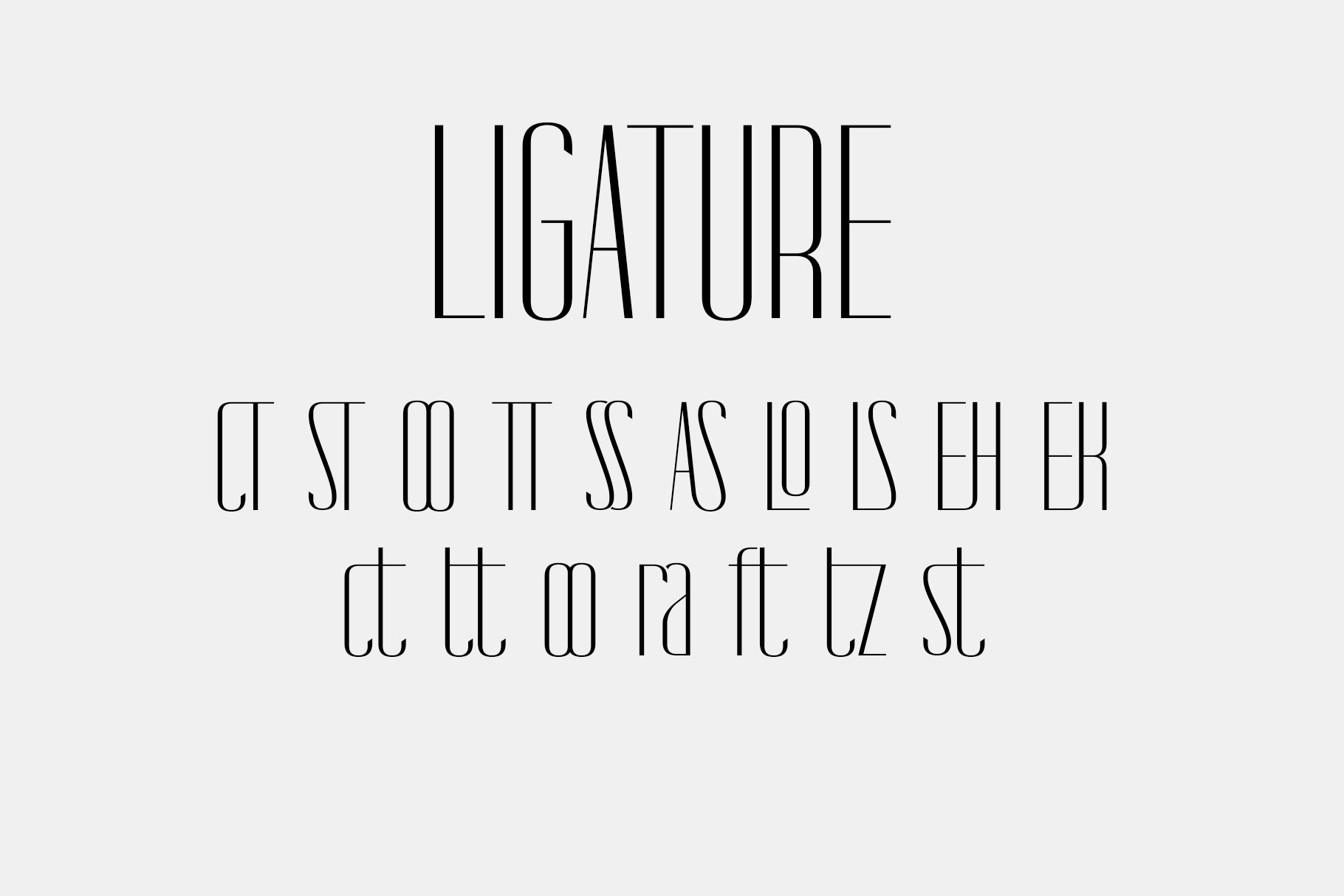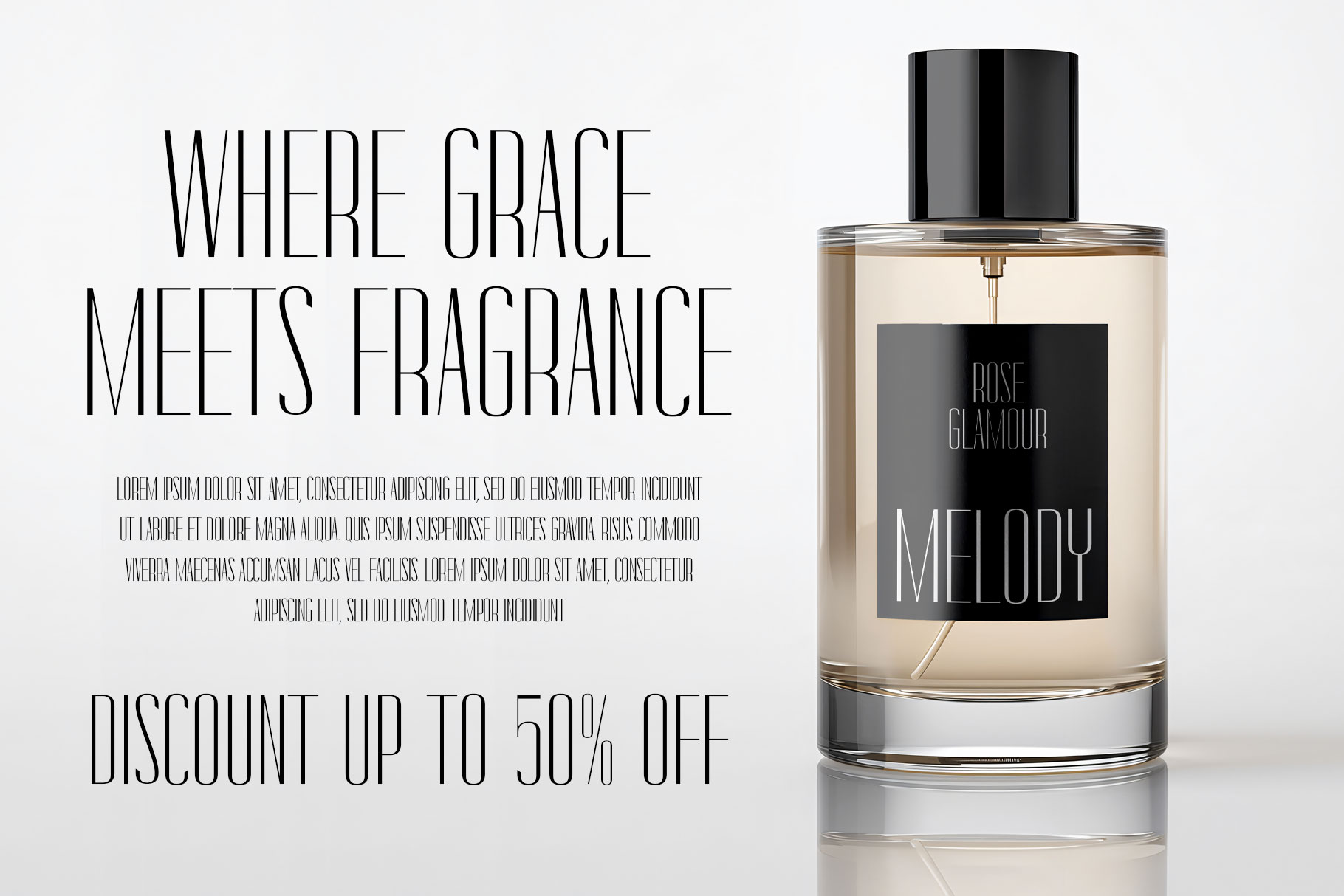
Mocelia Elegant Sans Font
Mocelia is elegant sans font embodies sophistication, confidence, and timeless beauty. Mocelia bring style of typography instantly communicates luxury and clarity. Mocelia is a perfectly choice for any creative endeavor, creating, modern, lifestyle design such as logotype, title, cover, branding, invitations, wedding designs, display and magazine, social media posts, advertisements, printed quotes, product packaging, corporate brand, product designs, labels, photography, watermarks, special events and any other project with luxury touch.